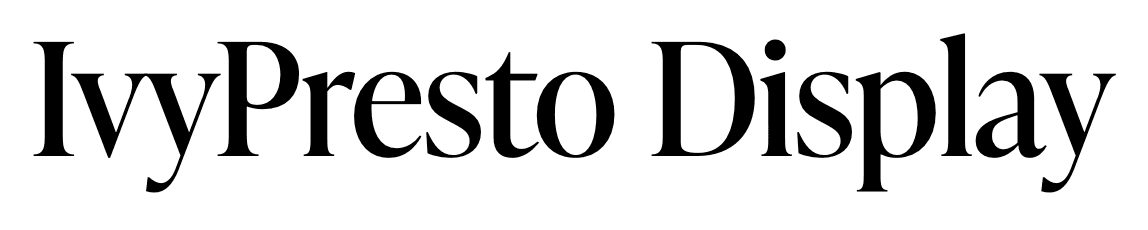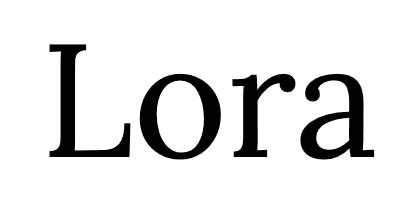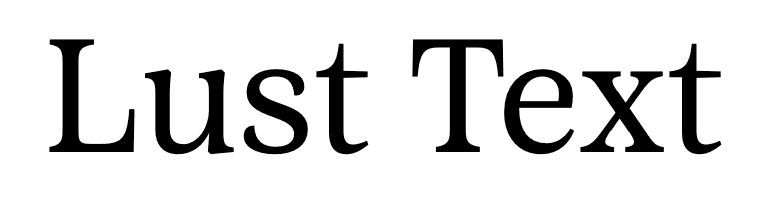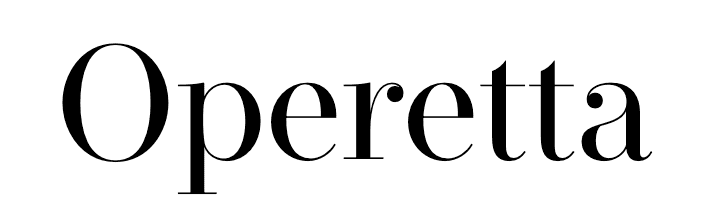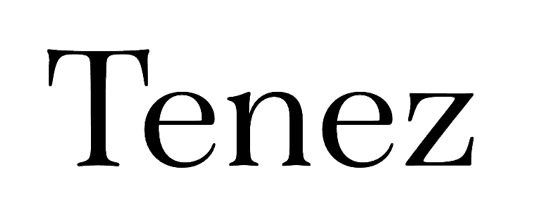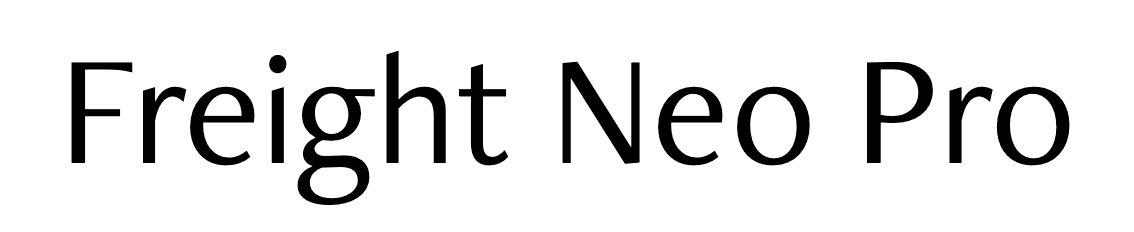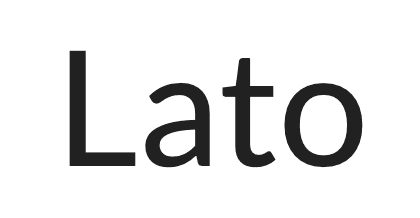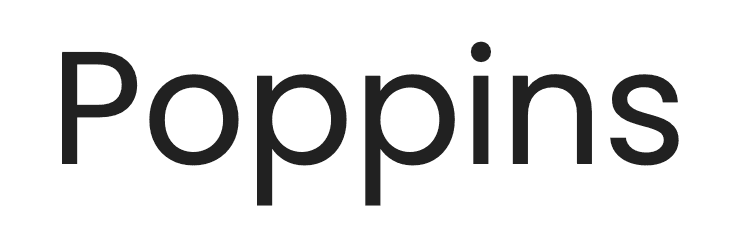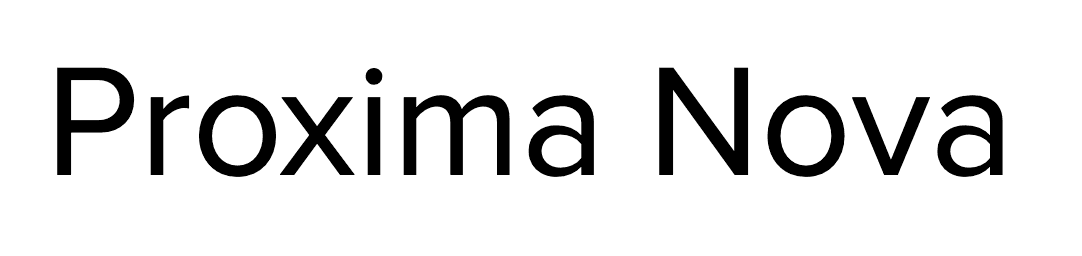
Best fonts in Squarespace: 2026 fonts list and font pairings
I don’t know about you but I love fonts. I could get lost for days on Creative Market looking at all the fonts for sale. The flip side of this is complete overwhelm and the fact that you lost days simply looking at letters. The good news is that you can skip all this stress because Squarespace has some amazing built-in fonts that you get to use for free on your website, plus I’m sharing the best fonts in Squarespace and my favourite font pairings below that I’ve curated through building dozens of Squarespace for clients.
Whether you’re looking for a high-end serif font or a modern and clean sans serif font, Squarespace already has all the fonts you need.
Squarespace* includes the use of Adobe Fonts and Google Fonts on your website without having to pay an extra fee or uploading custom fonts using complicated code.
While not every single font is available directly in the back end of Squarespace, a paid subscription includes over 1,000 Adobe Fonts and 600 Google Fonts.I trust you’ll be able to find something that suits your website and brand with that many to choose from!
You can also strategically choose fonts for your brand that you know are included in Squarespace so that your visual branding is consistent across all platforms. If not you can still upload a custom font using the Custom CSS panel although it’s not the easiest process. However it’s still an option if your heart is set on a font that isn’t available in the Squarespace fonts library.
Complete Squarespace Font List
Surprise, surprise, there isn’t a complete list of Squarespace fonts! Why not?
I suspect it’s because old fonts get removed from the library and new fonts get added to the library so regularly that it would be a waste of time to try and list them all.
Your best bet is to just start a new Squarespace* trial (you can start as many new Squarespace websites as you want for 14 days without paying a dime) and then take a look at the font list by following the steps in the section called “How to Change Fonts in Squarespace”.
You can also keep reading to find my curated list of high-end Squarespace fonts and font pairings.
The Best Fonts in Squarespace
After building dozens of Squarespace websites for clients, you’ll find my curated list of 20+ fonts (from the entire collection of 1,600+ Squarespace fonts) organized into serif and sans serif.
All example images are using the Regular weight of the font.
I’ve also included what weights each font is available in on Squarespace, as some fonts are available all the way from thin and light to extra bold and black on Adobe or Google, but only regular or regular and bold weight on Squarespace.
It’s best not to fall in love with a certain weight of a font while browsing on Adobe or Google and then realize you can’t use it on Squarespace without custom code. This is why I start on Squarespace itself while choosing a font for a brand.
Also make sure you type some filler content on your test site to see the styling on specific letters like a, g, q, t, w, y, z. Those are common letters where you might be looking for a certain letter shape. For example, I have a note that on the Ratio Modern font the lowercase letter t is styled strangely with a curve and a sharp point. I love every other letter except that one.
This is an example of why you’d want to see the font on a test website before making your final choice. You can even insert a text block and manually type out the entire alphabet and common punctuation in both uppercase and lowercase letters to make sure you see all of them, especially the less common letters like Q and Z.
Serif Fonts
Adobe Caslon Pro
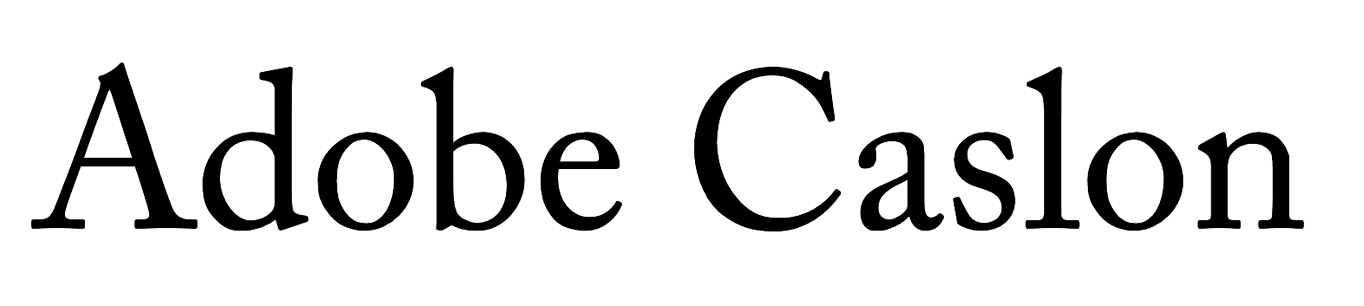
This font has what feels like some medieval styling since it’s based all the way back to typesettings in the 1700’s. Change the spacing to -0.02em or more to give it a modern feel, when it’s spaced out it can feel like you’re reading some sort of printed traditional manuscript.
Available in the following weights on Squarespace:
Regular (400)
Semibold (600)
Bold (700)
Note: If you like Adobe Caslon except you’d like the inner arms on the uppercase W to overlap, try Adobe Garamond Pro instead.
Antic Didone
This is an interesting serif font with graceful curves and thin lines. Although the font has been designed with readability in mind (something called the X-height for you font nerds), I find that due to its thin strokes it’s harder to read than other serif fonts. It’s also not available in anything but a regular weight. I recommend you only use this for your header font which is what it was originally designed for anyways.
There you have it, everything you need to know about the best fonts on Squarespace*. Clearly we’ve barely scratched the surface with over 1,600+ built-in fonts to choose from but this should get you started.
Choosing fonts should be made at the beginning of your website process, and be sure to use the same fonts (if possible) in any other marketing on other platforms. Consistency is key!